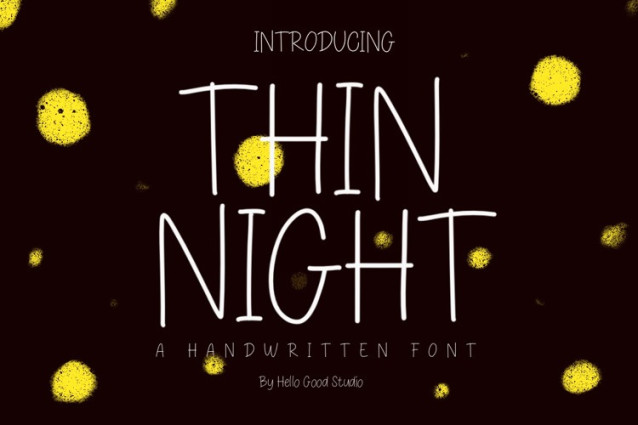
Thin Night Font is a simple and friendly handwritten font. Its natural and unique style makes it incredibly fitting to a large pool of designs. The only limit is your imagination!
Thin Night Font